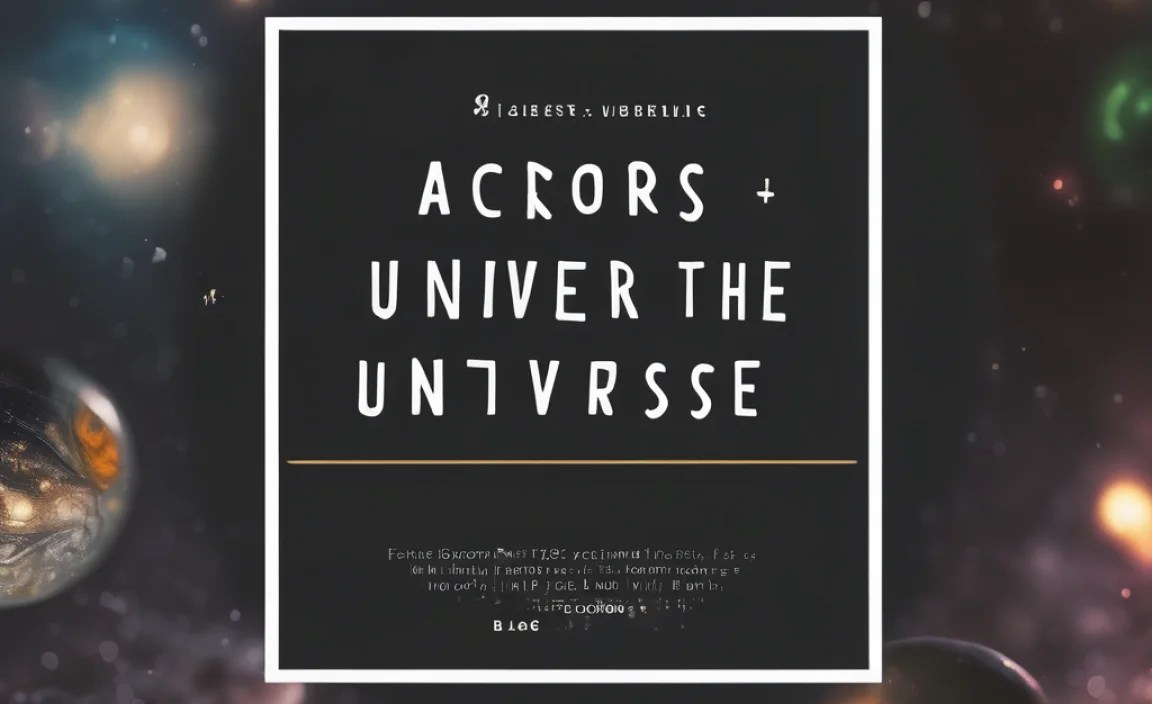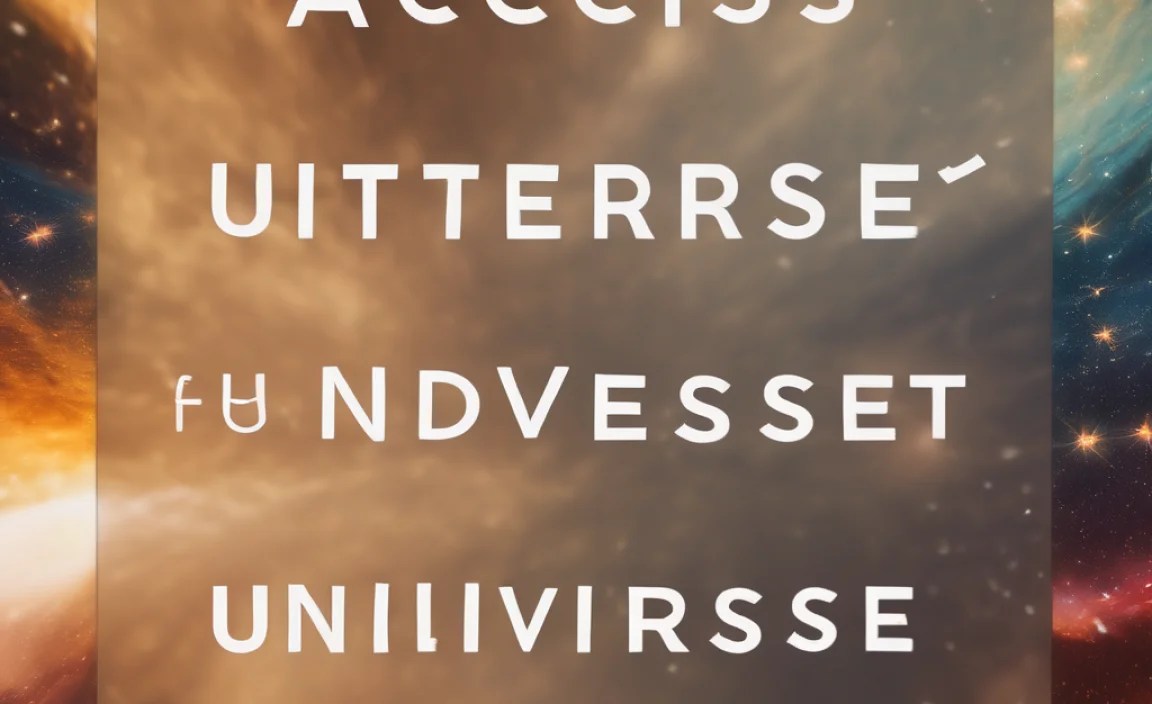
Have you ever wondered how fonts can change the way you read a story? Fonts are like clothes for letters. They make words look different and feel special. One interesting font is the Across the Universe Font. This font has a unique style that catches the eye. Some say it feels like a trip through space. Isn’t it amazing how just one font can do so much? Let’s explore the world of fonts together!
Key Takeaways
- The Across the Universe Font feels like a space journey.
- Fonts give character to written words.
- Designers use fonts to create mood and feeling.
- Fonts can make reading fun and exciting.
- Choosing the right font is important for readers.
Discovering Across the Universe Font
Fonts might seem simple, but they hold great power. The Across the Universe Font does more than just look pretty. It takes readers on a journey beyond the stars. Imagine reading a story about space travel. Wouldn’t this font make the trip even more exciting? Fonts like this are used in books, games, and even movies. They help tell stories in a special way. When a designer chooses a font, they think about the story they want to tell. They ask, “How can this font make my story better?”
- Fonts can set the tone of a story.
- Some fonts feel modern and fresh.
- Others might feel old-fashioned or classic.
- Font size can change how we read.
- The right font grabs attention quickly.
- Designers select fonts to fit their theme.
- Fonts can express emotions in writing.
Choosing a font is like picking the right outfit for a party. You want to look your best and feel confident. The Across the Universe Font is like wearing a shiny space suit. It draws attention and makes everything feel adventurous. Designers use it to make their work stand out. When you see this font, you might feel like you are zooming through space. Isn’t it fascinating how a font can do that?
Why Fonts Matter
Fonts are essential in our daily lives. Think about the books or games you love. What if they had boring fonts? Would you still enjoy them? Probably not! Fonts add magic to words. They make stories come alive. When you read a story with the Across the Universe Font, it feels like an adventure. The right font makes reading fun. That’s why designers spend time picking the perfect one.
How Designers Choose Fonts
Have you ever seen a movie poster? Designers use special fonts to catch your eye. They think about what the movie is about. If it’s a space movie, they might choose the Across the Universe Font. It helps tell the story even before you watch it. Designers ask questions like, “What do I want people to feel?” or “How can I make this exciting?” The answers help them pick the right font.
Fonts in Everyday Life
Look around you. Fonts are everywhere! On cereal boxes, video games, and even your school books. Ever wonder why some look playful and others serious? That’s the magic of fonts. They change the way we see things. The Across the Universe Font might make you think of stars and galaxies. It’s amazing how something so small makes a big difference!
The Magic Behind Font Design
Font design is a mix of art and science. Designers consider every curve and angle. They want the font to look perfect. The Across the Universe Font is no exception. It’s designed to feel both modern and timeless. Designers use it to take readers on a journey. They think about how each letter looks. They ask, “Does this shape work well together?” and “Is it easy to read?”
- Font design involves creativity and planning.
- Every line and curve is important.
- Fonts need to be readable and stylish.
- Designers test fonts in different sizes.
- Good fonts work on many platforms.
- Designs must fit the theme or story.
- Fonts can be bold, subtle, or elegant.
Think of a font designer like a musician. They create a harmony of letters. Each note or letter must fit perfectly. The Across the Universe Font is one of their masterpieces. It captures the essence of space exploration. Designers use it to add depth to their work. When you see it, you might feel like you’re soaring through the stars.
Creating Fonts
Designing a font takes time and skill. Artists sketch each letter. They use computers to perfect every detail. The Across the Universe Font was created with care. Designers ensure it looks good on paper and screens. They face challenges like “How can we make this unique?” and “Will it work for everyone?” It’s not easy, but it’s rewarding.
Testing Fonts
Before a font is ready, it gets tested. Designers print it out and try it on screens. They check if it’s easy to read. The Across the Universe Font went through many tests. Designers asked questions like, “Is it clear and bold?” or “Does it fit the theme?” Testing helps make sure the font is perfect for any project.
Question: What is font design?
Answer: Font design is the art of creating letters and characters. Designers plan the look of each letter. They focus on style and readability. Good font design makes text engaging and easy to read.
Question: Are there many types of fonts?
Answer: Yes, there are thousands of fonts! Each has a unique style and purpose. Some are playful, while others are formal. The Across the Universe Font is one of many that offer unique looks and feels.